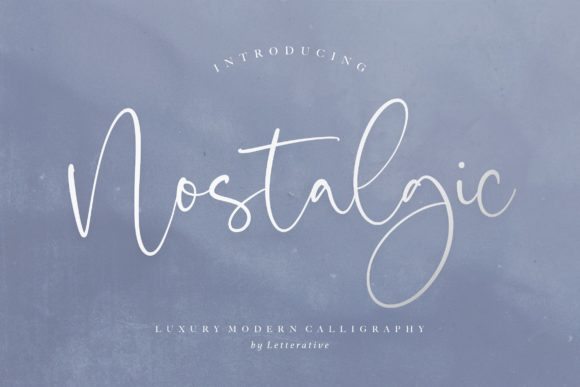
Step into a world of timeless elegance with Nostalgic, the enchanting script font that will captivate your senses and elevate your designs to new heights. This exquisite creation by letterativestudio masterfully blends the charm of traditional calligraphy with a refreshing modern touch, resulting in a font that is both classic and contemporary.
Immerse yourself in the beauty of Nostalgic's delicate strokes and flowing lines. Each letter is meticulously crafted to convey a sense of grace and sophistication, adding a touch of luxury to your projects. Whether you're a designer creating stunning visuals or a creative professional seeking to make a lasting impression, Nostalgic is the perfect font to bring your vision to life.
Transport your audience back to a bygone era with Nostalgic's timeless appeal. Its vintage-inspired charm evokes a sense of nostalgia and romance, making it ideal for projects that seek to capture the essence of the past. Unleash your creativity and craft designs that exude sophistication and elegance, leaving an indelible mark on the minds of those who encounter them.
Explore the versatility of Nostalgic, a font that effortlessly adapts to a wide range of design styles. Its thin and luxurious strokes add a touch of femininity and delicacy to wedding invitations, branding materials, and social media graphics. Experiment with different color palettes and backgrounds to create visually striking designs that command attention.
Nostalgic's inherent beauty extends beyond its aesthetic appeal. Its exceptional legibility and readability ensure that your message is conveyed clearly and effectively. Whether you're crafting website content, marketing materials, or eye-catching headlines, Nostalgic delivers a seamless reading experience, ensuring that your words resonate with your audience.
Elevate your designs to the highest levels with Nostalgic, the font that embodies timeless elegance and contemporary charm. Its versatility, legibility, and captivating beauty make it the perfect choice for designers and creatives seeking to create stunning visuals that leave a lasting impression. Embrace the power of Nostalgic and embark on a creative journey that will redefine the boundaries of design.